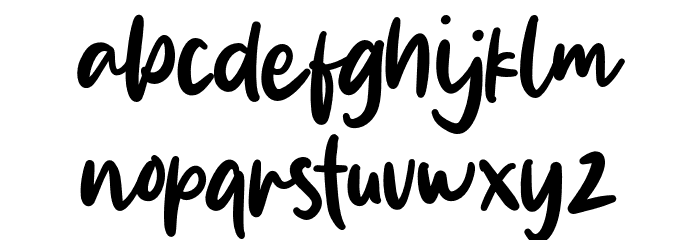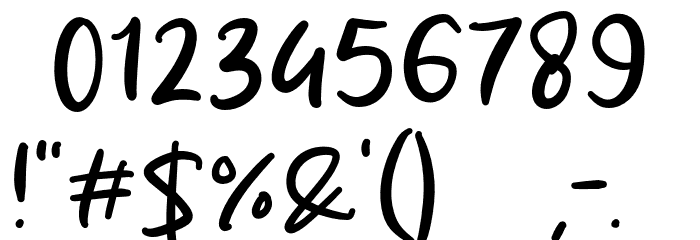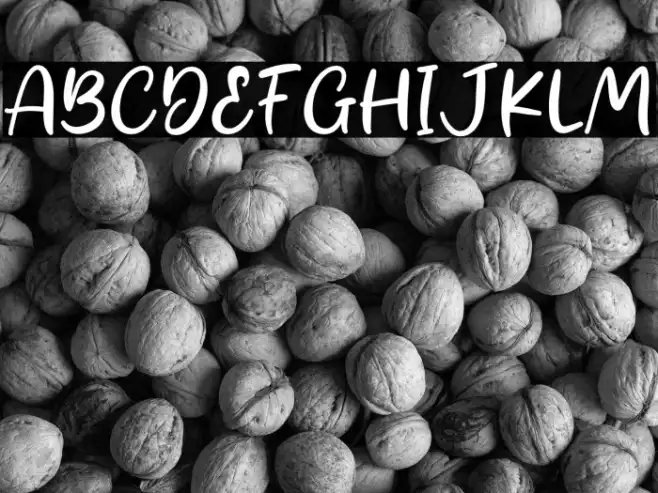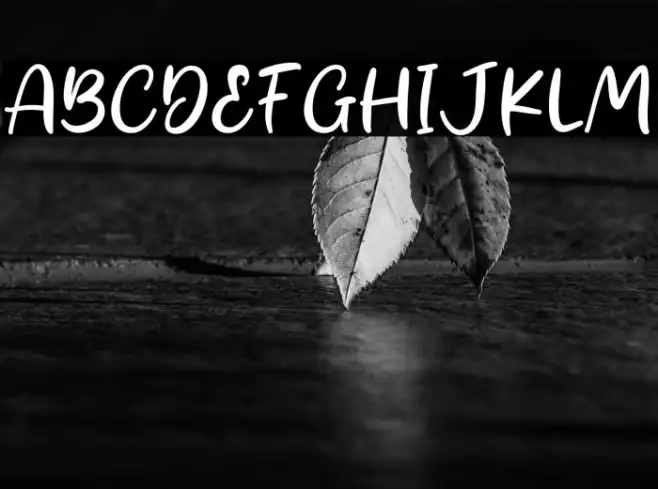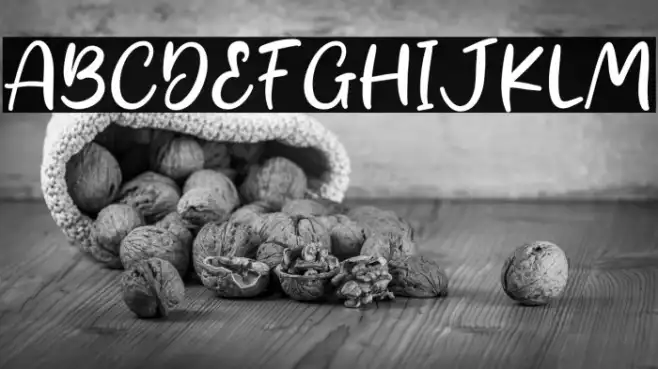
Darwin Smith Font
This font exhibits a playful and casual handwritten style, characterized by smooth, flowing strokes and a slightly irregular baseline that adds a touch of whimsy. The letters are well-rounded and maintain a consistent thickness throughout, giving it a balanced and approachable appearance. The uppercase and lowercase letters are distinct yet harmonious, with the lowercase letters featuring a slight slant that enhances the informal feel. Numbers and special characters are crafted with the same attention to detail, ensuring readability and cohesion across all elements.
A playful, casual handwritten font with smooth, flowing strokes.
- Font: Darwin Smith
- Proposed Projects: Ideal for personal branding, greeting cards, social media graphics, and informal invitations.
- Category: Handwritten
- Overall Style: Casual
- Use Case: Logos, Headlines, Informal text